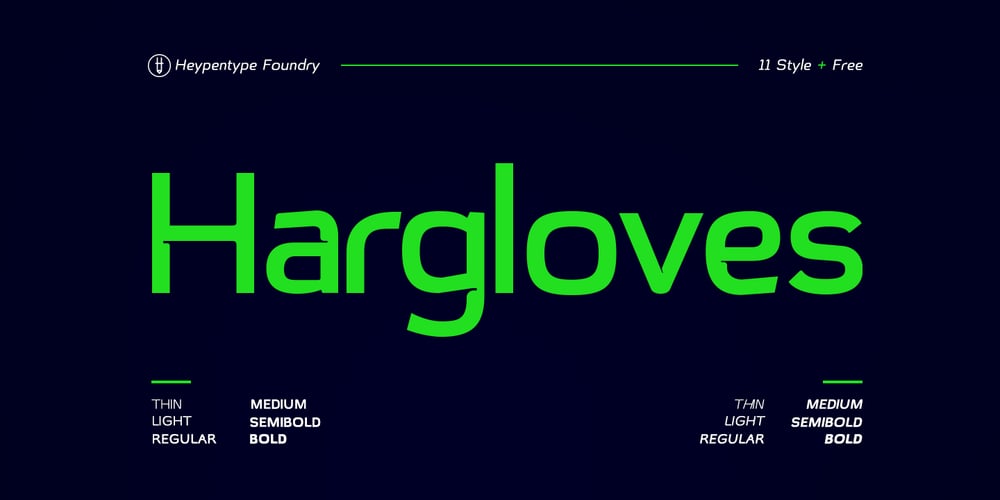
Hargloves
Hargloves font
Hargloves Font Family was designed by Rofiki Anas Maruf and published by Heypentype. Hargloves contains 12 styles and family package options. Hargloves is a modern sans serif font family. The overall design shapes taken from advance engineering technology themes in various industries like motorsports, biotech, games, architecture, robotics, and aerospace tech. A distinct visual characteristic of this font family can be found on ‘G’,’O’,’P’,’Q’, and ‘R’ letter. Each glyph design combined a geometric shapes and stylished ink-traps with parabolic curves. The design of the glyph curves taken from fast corner often found on motorsports circuit, when diagonal glyph shapes taken from aerodynamic in machine engineering and kinetic movement on sports.Hargloves consist of 12 font with 6 weight: From thin to Bold with each matching italics.It also contains extras 4 Icons designed specifically for sports entertainment. Hargloves support for most western languages and several opentype features.